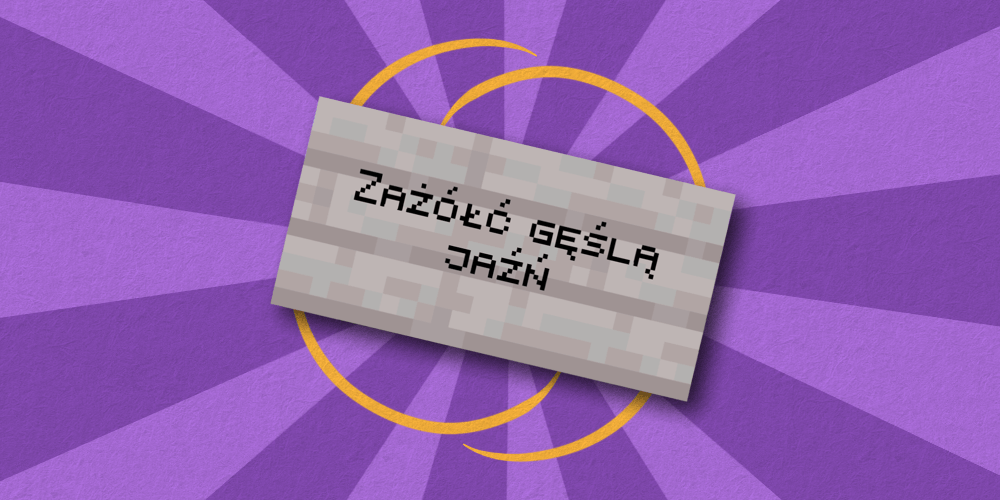
Small Caps Font Expanded
A fork of Vanilla Tweaks' Small Caps Font that supports accented character.
This resource pack is a fork of Vanilla Tweaks' Small Caps Font, that supports accented characters (the original Resourcepack doesn't support them) making the font consistent when you play in other languages than English.